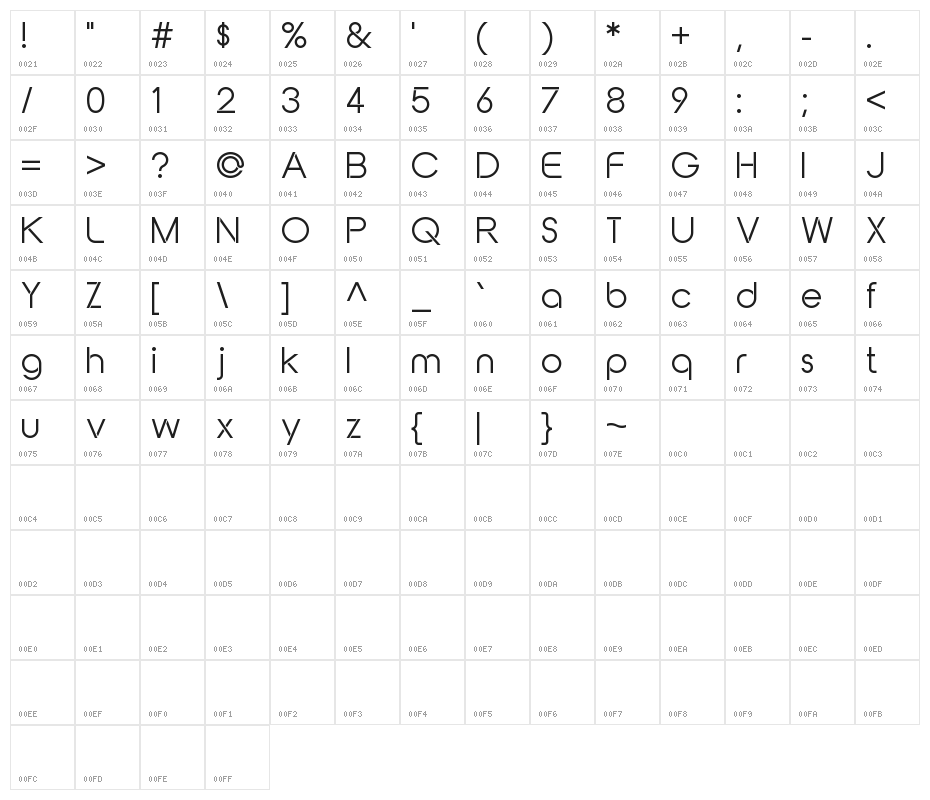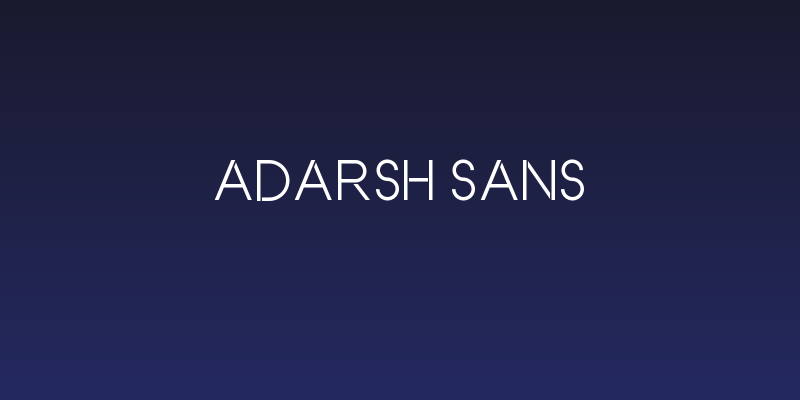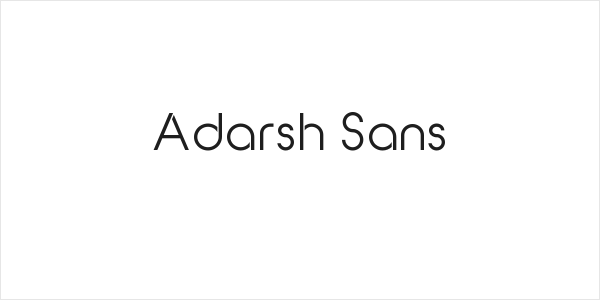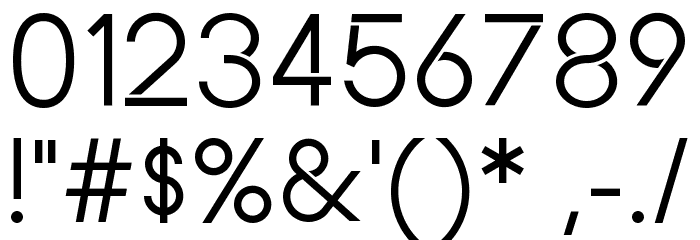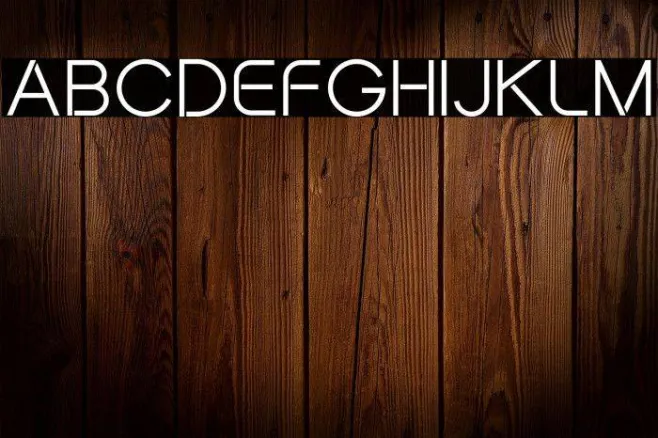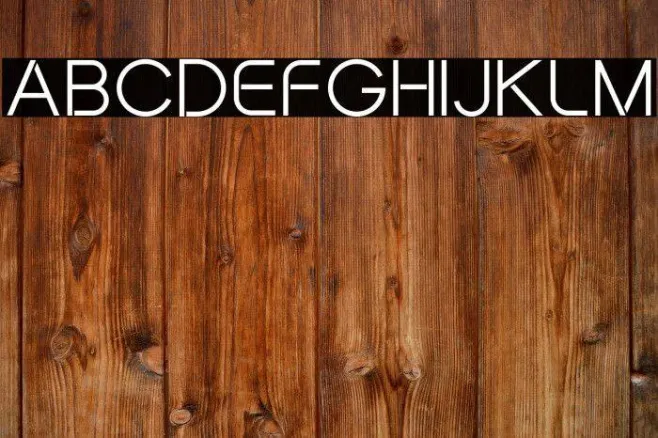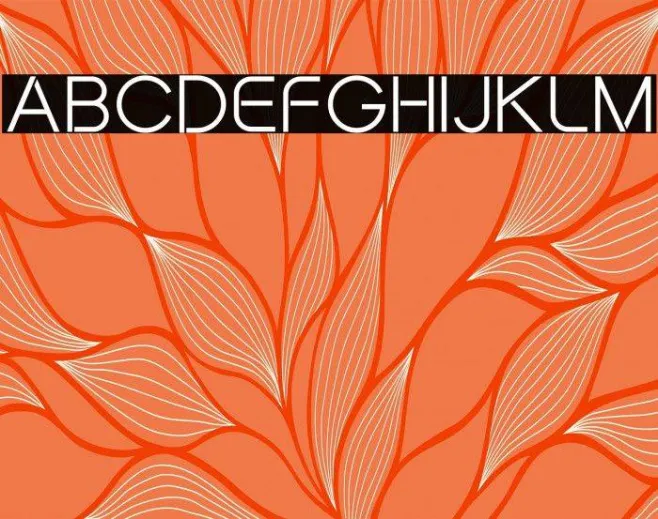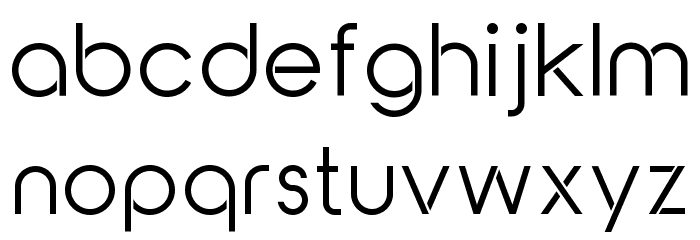
Adarsh Sans Font
Adarsh Sans Description
This font features a clean and modern sans-serif design, characterized by its geometric shapes and uniform stroke widths. The uppercase letters are bold and striking, while the lowercase letters maintain a consistent and harmonious appearance. The numerals are clear and easily distinguishable, making them suitable for various applications. The special characters are well-integrated, ensuring versatility in design projects. The overall style is minimalistic, with a focus on readability and simplicity, making it ideal for contemporary design needs.